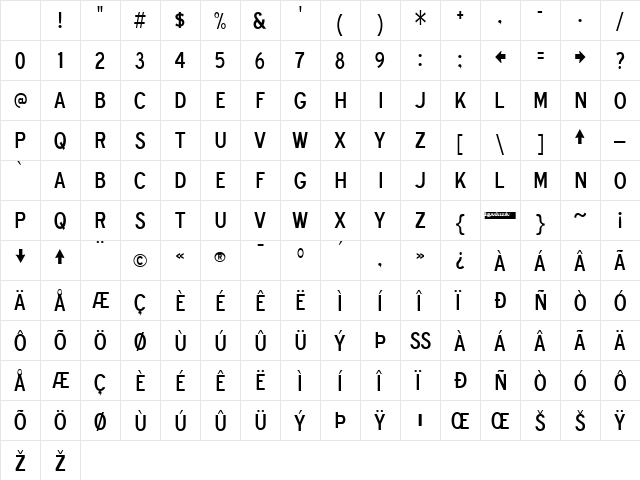
Complete Blue Highway Free D Regular glyph index. Displaying only characters natively supported by Blue Highway Free D Regular font.
Blue Highway Free D is a composed and adaptable typeface that performs quietly and consistently across a wide range of design contexts.